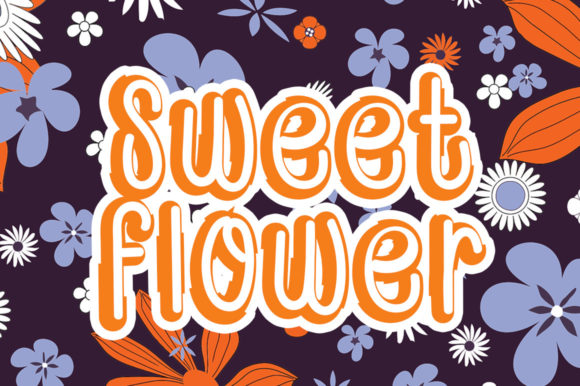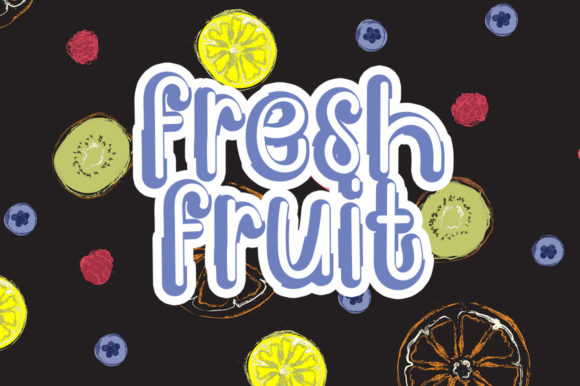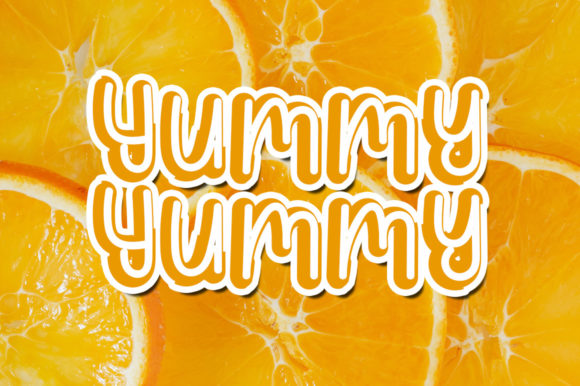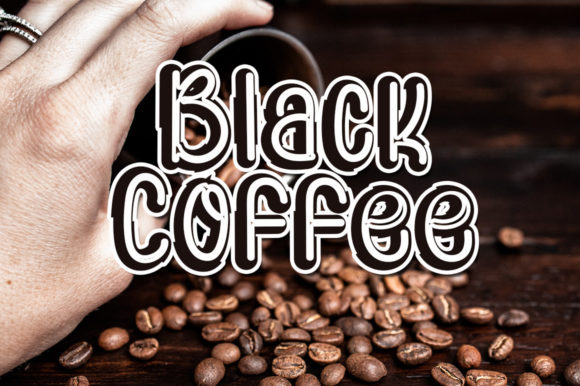
Introduction to Juice Orange Font
Juice Orange is a joyful, fun and casual display font.
Add this beautiful display font to each of your creative ideas and notice how it makes them stand out .
Key Features of Juice Orange Font